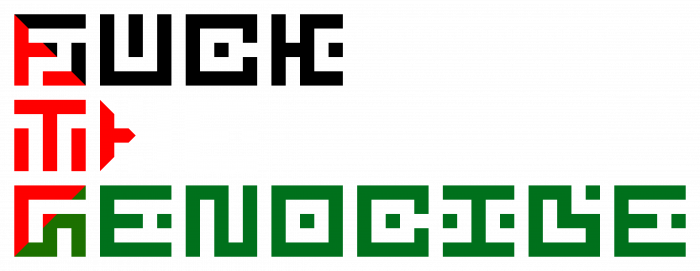
E is the palestine Flag
Yeah, that was the starting point.
This is inline with KD Ukraine, but let's hope that we don't need to make these kind of fonts anymore. Let's say no to war.
just realized now... the N is good:
the upper short line combines wth the line that gets made after combining black and green.
C is a rounded Palestine flag
it says "FŰʗĶ THE GENOCIDE"